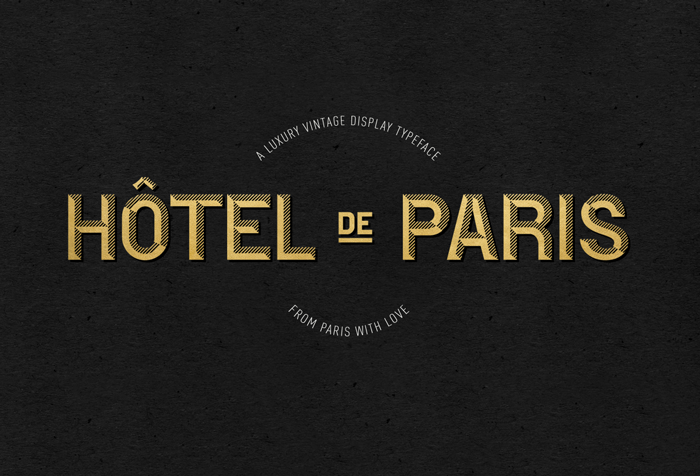
Hotel De Paris Font
Introducing Hotel De Paris Font! Hotel De Paris designed and shared by StereoType. Hôtel De Paris is a vintage display typeface ! The full commercial version comes with an additional set, and a bunch of little words.